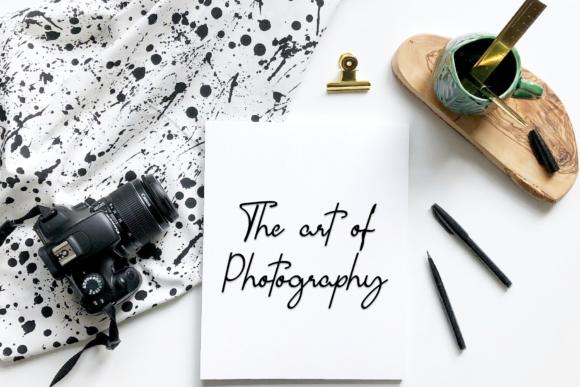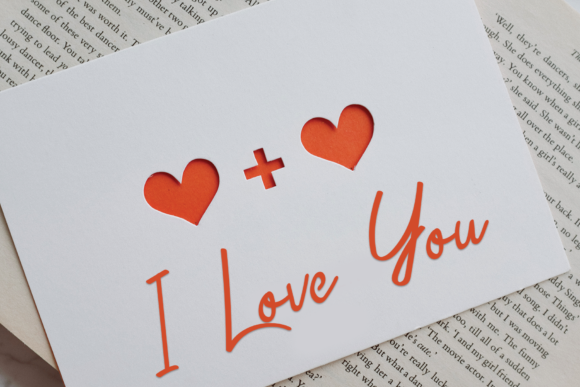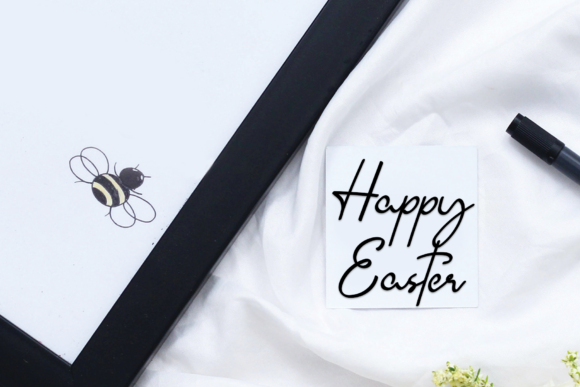
Father Christmas Font
About Father Christmas Font
This Father Christmas Script font is timeless and perfect for your next design that needs a handwritten touch.